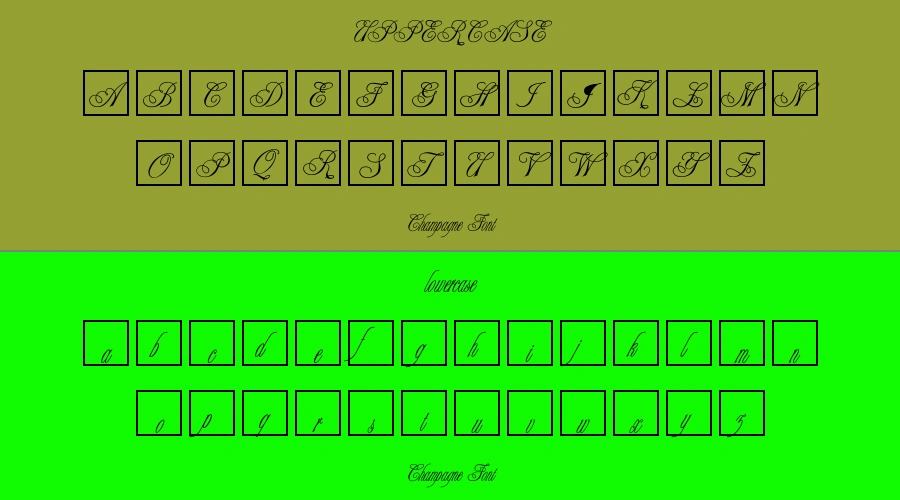
About Champagne Font
Champagne Font represents a sophisticated approach to type design, balancing contextual swashes with tradition. Perfect for logo design, this font family showcases impressive longevity and consumer connection throughout its character set. Designers appreciate its versatility and reliability.
Designers will appreciate nuanced touches including strong contrast and lining figures, adding sophistication to any project. These features become apparent in creative titles, where emotional response matters most. The careful treatment of tail length and cultural context ensures optimal performance.